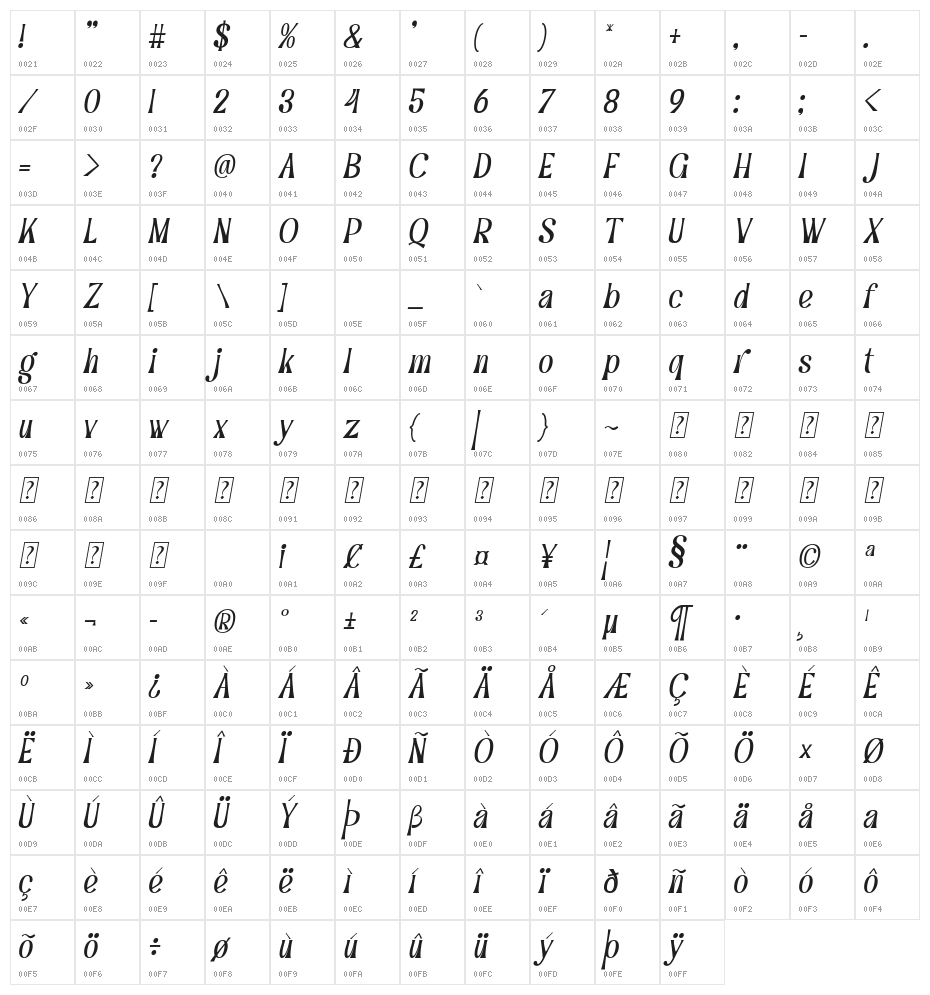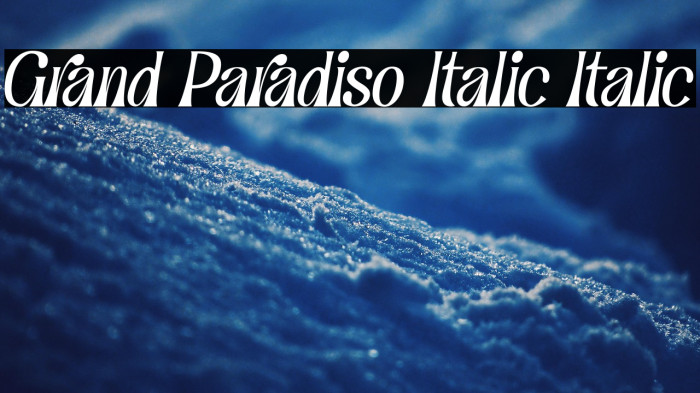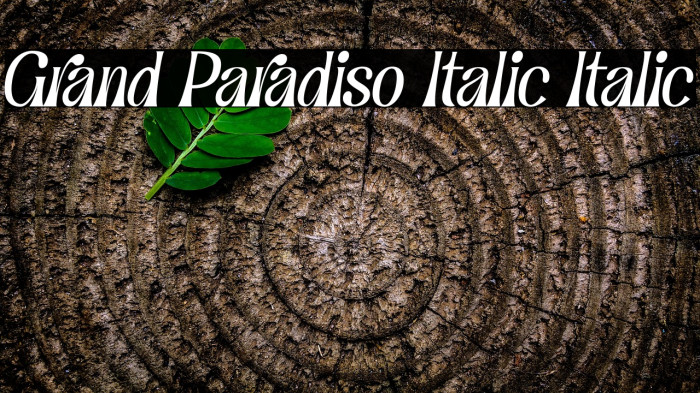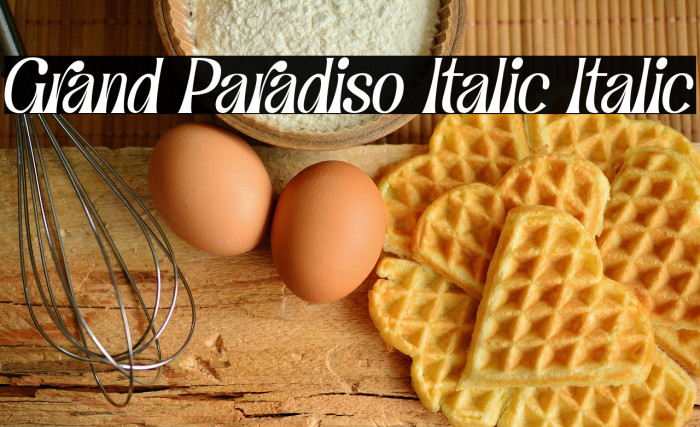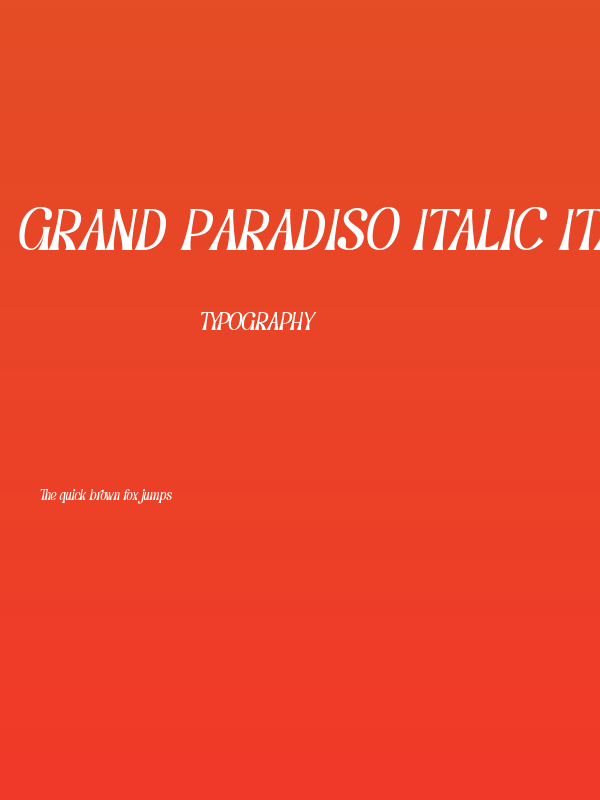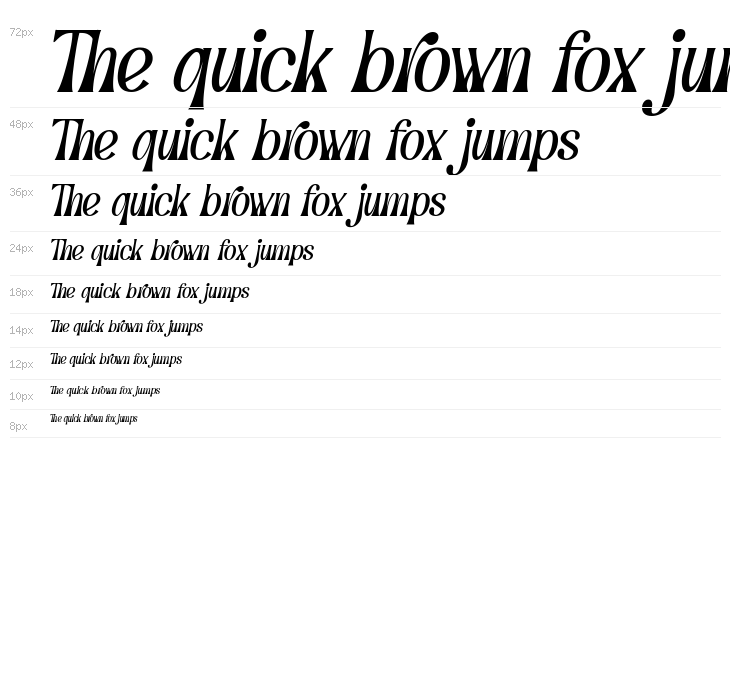
Grand Paradiso Italic Italic Font
Grand Paradiso Italic Italic Description
This font exudes a sophisticated and elegant style with its italicized form, characterized by smooth curves and a flowing structure. The uppercase letters are bold and commanding, while the lowercase letters maintain a graceful continuity. The numerals are distinct and well-proportioned, ensuring readability. Special characters are crafted with attention to detail, adding to the overall aesthetic appeal. The font's slanted design gives it a dynamic and modern feel, making it suitable for various creative applications.
| Proposed Projects | Ideal for fashion magazines, luxury branding, wedding invitations, and elegant logo designs. |